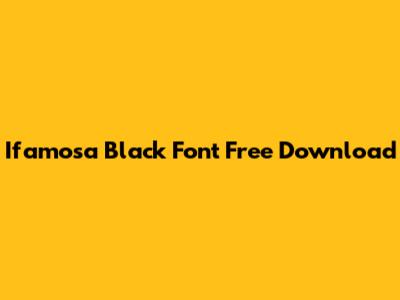
Ifamosa Black Font: Free Download Guide
Hey guys! Are you on the hunt for the Ifamosa Black font and looking for a free download? You've landed in the right spot! This article will walk you through everything you need to know about this awesome font, where to find it, and how to use it in your projects. Let's dive in!
What is Ifamosa Black Font?
Ifamosa Black is a modern sans-serif typeface known for its bold and impactful appearance. Its clean lines and strong character make it a favorite among designers for various applications, from branding to headlines. This font exudes confidence and is perfect for projects that need to grab attention. The Ifamosa Black font is characterized by its uniform stroke weight and geometric construction, providing excellent readability and a contemporary feel. It stands out due to its versatility; while it's assertive, it remains highly legible, making it suitable for both print and digital media. Designers often choose Ifamosa Black to convey a sense of strength and modernity, ensuring that their message is communicated with clarity and impact. Its widespread appeal is also attributed to its availability in various weights and styles, offering flexibility for diverse design needs. In branding, it can establish a solid and recognizable identity, while in editorial design, it provides a sophisticated and clean look. Whether it's used in logos, posters, websites, or mobile apps, Ifamosa Black consistently delivers a professional and stylish aesthetic. Furthermore, the font’s design allows it to pair well with other typefaces, making it a valuable addition to any designer's toolkit. The balanced letterforms and careful spacing enhance its overall appeal, ensuring it remains a timeless choice for projects aiming for a modern and impactful appearance. The font’s inherent boldness makes it especially effective in headlines and call-to-actions, where it instantly captures the reader's attention. The robust structure of Ifamosa Black ensures that it remains clear and legible even at smaller sizes, making it a practical choice for body text as well. Overall, Ifamosa Black is an excellent option for designers seeking a font that combines strength, clarity, and contemporary style.
Why Choose Ifamosa Black?
Choosing the right font can make or break a design, and Ifamosa Black offers several compelling reasons to be your go-to choice. Its boldness immediately captures attention, making it perfect for headlines, titles, and branding materials where you need to make a strong statement. This font isn't just about looks; it's also incredibly versatile. Whether you're working on a sleek, modern website, a striking poster, or professional business cards, Ifamosa Black adapts seamlessly to different contexts. The clean lines and geometric shapes of Ifamosa Black ensure excellent readability, which is crucial for conveying your message effectively. It performs well in both print and digital formats, maintaining its clarity and impact across various platforms. This font is designed to be visually appealing and functional, ensuring that your content is both engaging and easy to read. Moreover, Ifamosa Black exudes a sense of sophistication and professionalism, elevating the overall aesthetic of your projects. Its strong presence commands attention and conveys confidence, making it an ideal choice for brands that want to project an image of authority and reliability. When used effectively, Ifamosa Black can enhance brand recognition and create a lasting impression on your audience. Its ability to pair well with other fonts also adds to its versatility, allowing you to create unique and cohesive designs that stand out. Whether you're aiming for a minimalist look or a more complex design, Ifamosa Black provides a solid foundation upon which to build. Ultimately, choosing Ifamosa Black means opting for a font that combines visual appeal, readability, and versatility, making it a valuable asset in any designer's toolkit. The font’s inherent boldness is particularly useful in environments with visual clutter, ensuring that your message remains prominent and easily discernible. The strong visual impact of Ifamosa Black helps to create a memorable and lasting impression, enhancing brand recall and overall effectiveness of your communication efforts.
How to Use Ifamosa Black Font
Once you've successfully downloaded Ifamosa Black font, the next step is to learn how to use it effectively in your design projects. The versatility of Ifamosa Black makes it suitable for various applications, but understanding how to leverage its strengths is key to creating visually appealing and impactful designs. Start by considering the overall tone and message of your project. Ifamosa Black is a bold and assertive font, so it works well for designs that need to grab attention and convey confidence. Use it for headlines, titles, and call-to-actions to make a strong statement. However, avoid overusing it in large blocks of body text, as its boldness can become overwhelming and reduce readability. When using Ifamosa Black, pay attention to the font size and spacing. Adjust the font size to ensure that it is legible and proportionate to the other elements in your design. Increase the letter spacing (tracking) and line height (leading) to improve readability, especially in headlines and titles. Experiment with different font weights and styles to create visual hierarchy and emphasis. If Ifamosa Black comes with different weights (e.g., light, regular, bold), use them strategically to differentiate between headings, subheadings, and body text. This will help guide the reader's eye and make your design more organized and accessible. Pairing Ifamosa Black with other fonts can also enhance your design. Choose a complementary font for body text that is easy to read and contrasts well with Ifamosa Black. A classic pairing is Ifamosa Black for headlines and a simple serif or sans-serif font for body text. Experiment with different font combinations to find a balance that works for your specific project. Consider the color palette of your design when using Ifamosa Black. Use colors that complement the font's boldness and enhance its visual impact. High-contrast color combinations can make Ifamosa Black stand out even more, while more subtle color palettes can create a sophisticated and understated look. Finally, always test your design across different devices and platforms to ensure that Ifamosa Black renders correctly. Check the font's appearance on different browsers, operating systems, and screen sizes to ensure that it maintains its legibility and visual appeal. By following these tips, you can effectively use Ifamosa Black font to create stunning and impactful designs that capture attention and convey your message with clarity and confidence.
Working with fonts effectively can significantly enhance your design projects. Here are some tips and tricks to help you make the most of your font choices, including Ifamosa Black. Firstly, always start by considering the context of your design. The font you choose should align with the overall message and aesthetic you're trying to convey. For example, a bold font like Ifamosa Black is great for making a strong statement, but it might not be suitable for a delicate or understated design. Secondly, pay attention to font pairing. Combining different fonts can add visual interest and hierarchy to your design, but it's important to choose fonts that complement each other. A general rule of thumb is to pair a bold font like Ifamosa Black with a simpler, more neutral font for body text. This creates a balance and ensures readability. Thirdly, consider the readability of your fonts. While aesthetics are important, the primary purpose of text is to communicate information. Choose fonts that are easy to read in both print and digital formats. Avoid using overly decorative or stylized fonts for large blocks of text, as they can strain the reader's eyes and reduce comprehension. Fourthly, experiment with different font sizes and weights. Varying the size and weight of your fonts can help create visual hierarchy and emphasis. Use larger font sizes for headlines and titles, and adjust the font weight to highlight important information. However, be careful not to overdo it, as too much variation can make your design look cluttered and disorganized. Fifthly, pay attention to kerning and tracking. Kerning refers to the spacing between individual letters, while tracking refers to the overall spacing between all the letters in a word or phrase. Adjusting these settings can improve the readability and visual appeal of your text. In some cases, you may need to manually adjust the kerning to create a more balanced and harmonious look. Sixthly, always test your fonts across different devices and platforms. Fonts can render differently depending on the browser, operating system, or screen size. Make sure to test your designs on various devices to ensure that your fonts look consistent and legible. Seventhly, organize your fonts. Keeping your fonts organized can save you time and effort in the long run. Create folders for different font categories or projects, and use a font management tool to preview and activate fonts easily. Finally, stay updated with the latest font trends. The world of typography is constantly evolving, so it's important to stay informed about new font releases and design trends. Follow design blogs, attend workshops, and experiment with new fonts to keep your skills sharp and your designs fresh. By following these tips and tricks, you can elevate your font choices and create visually stunning and effective designs.